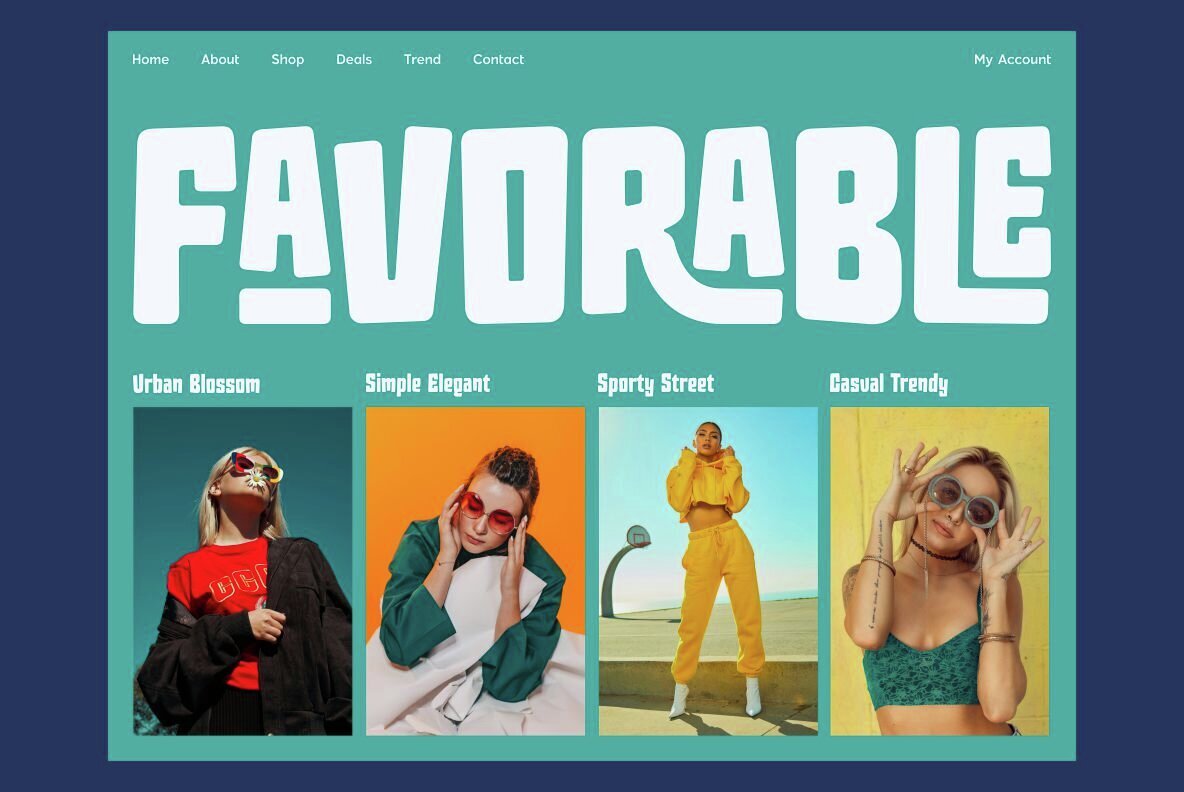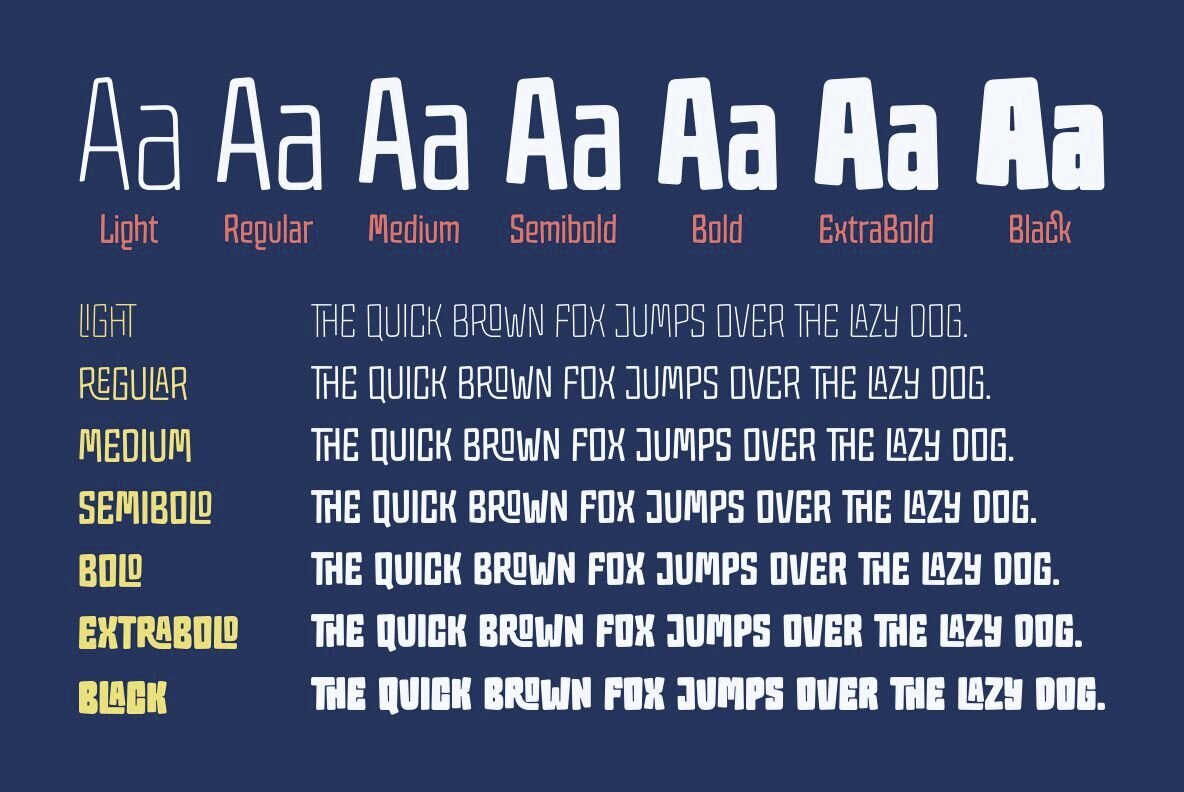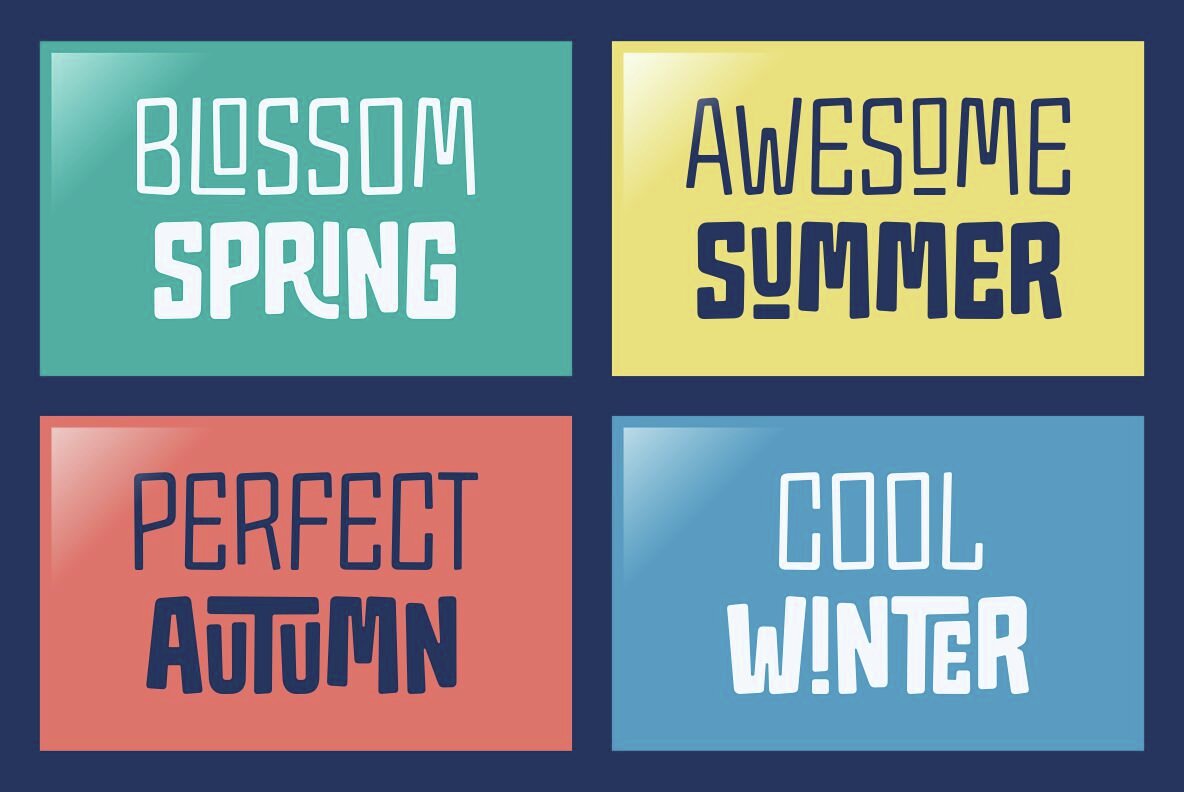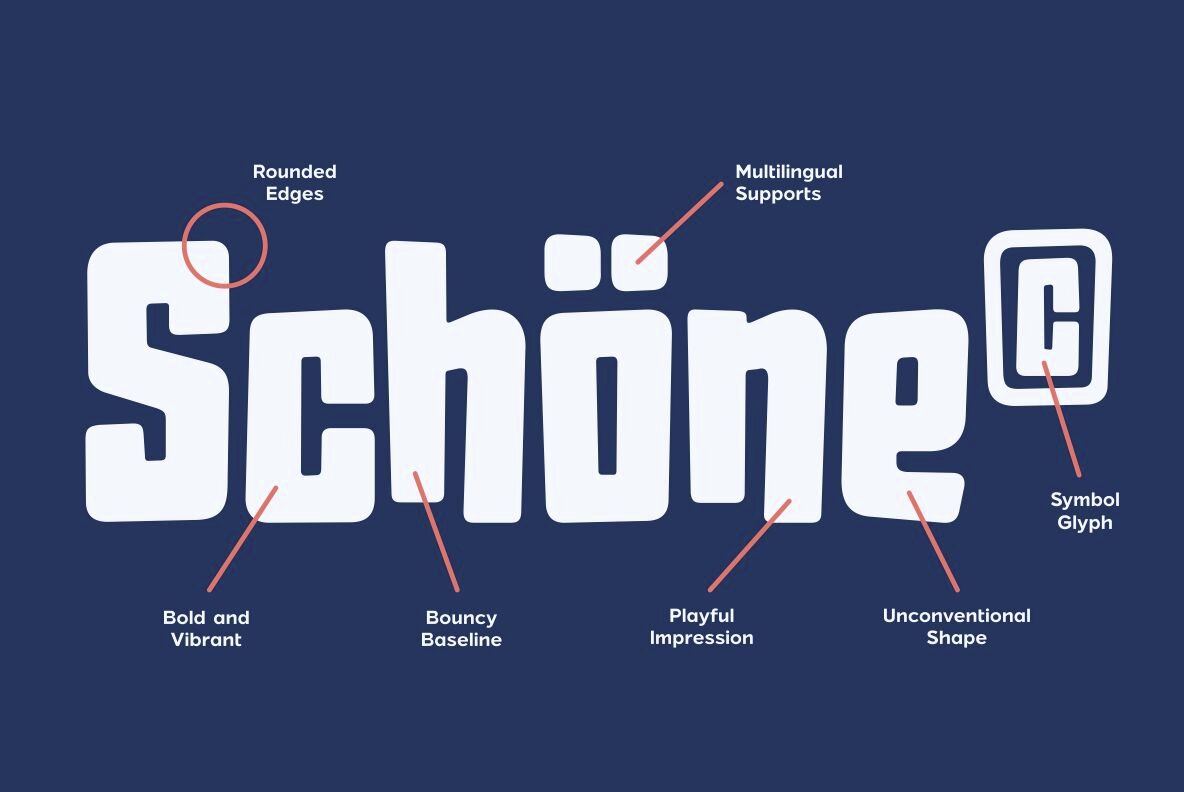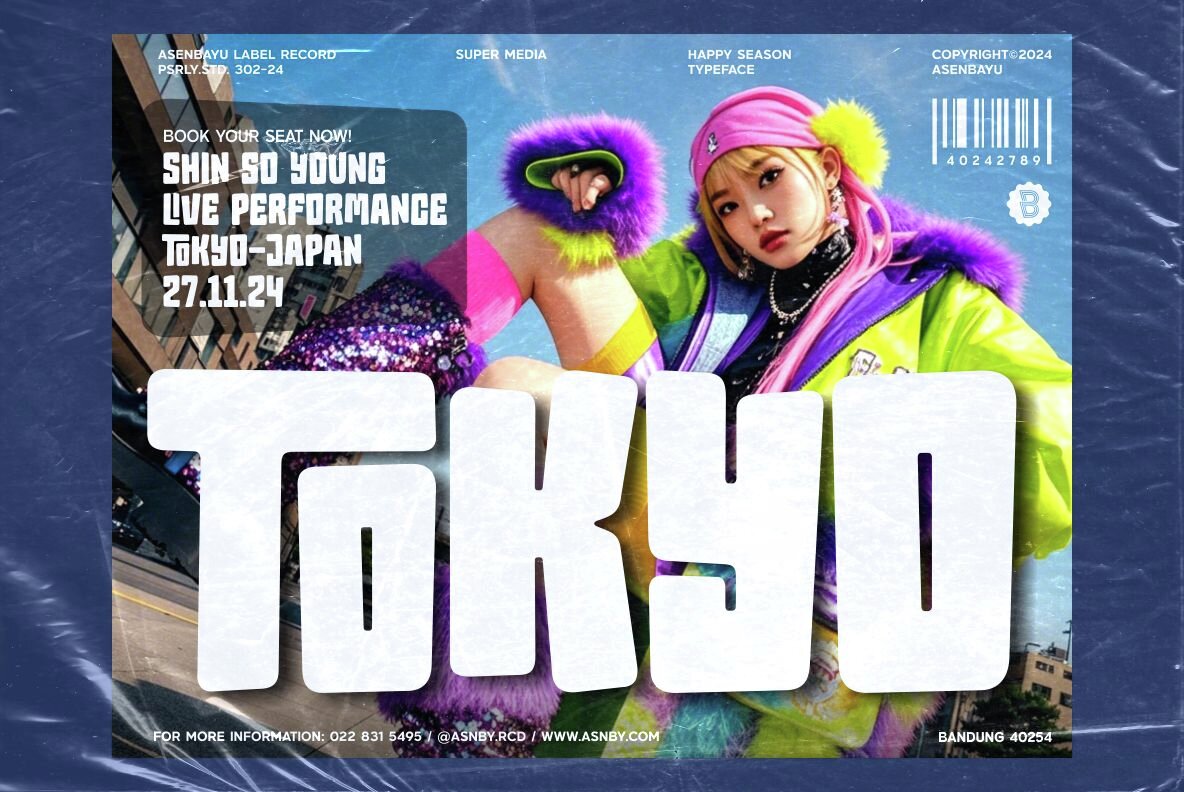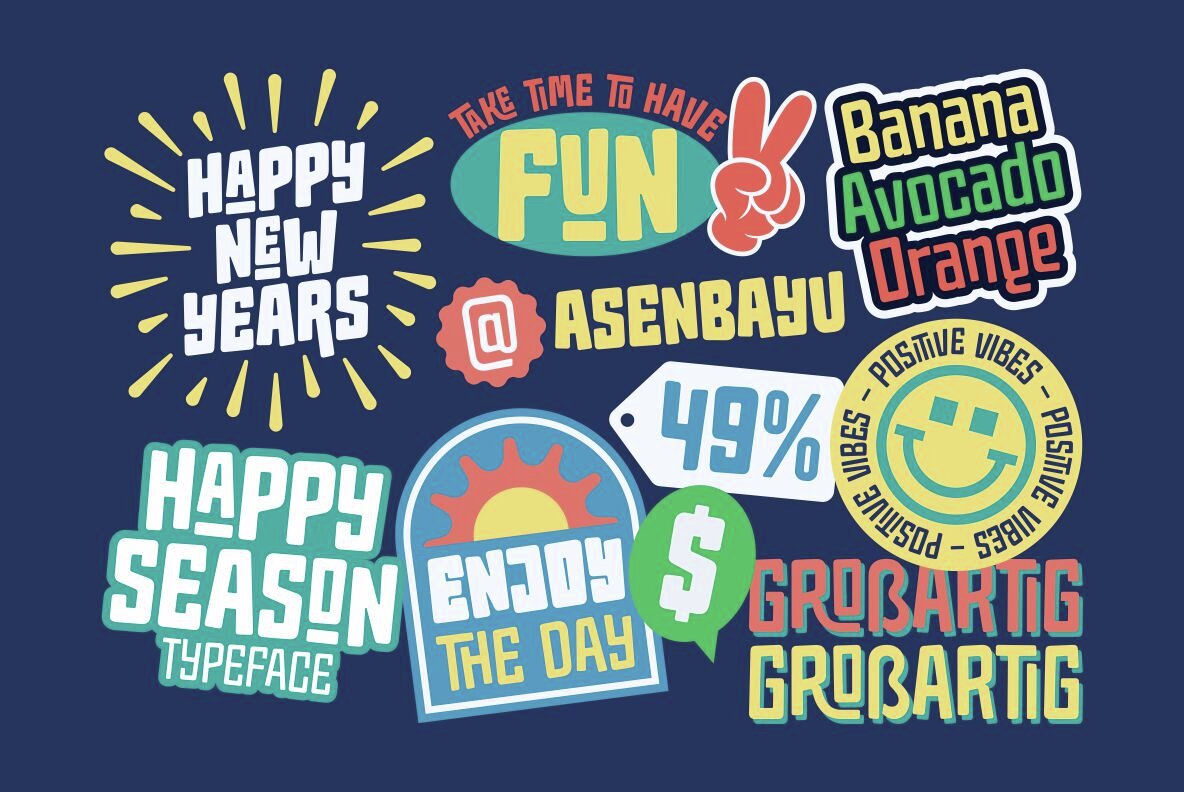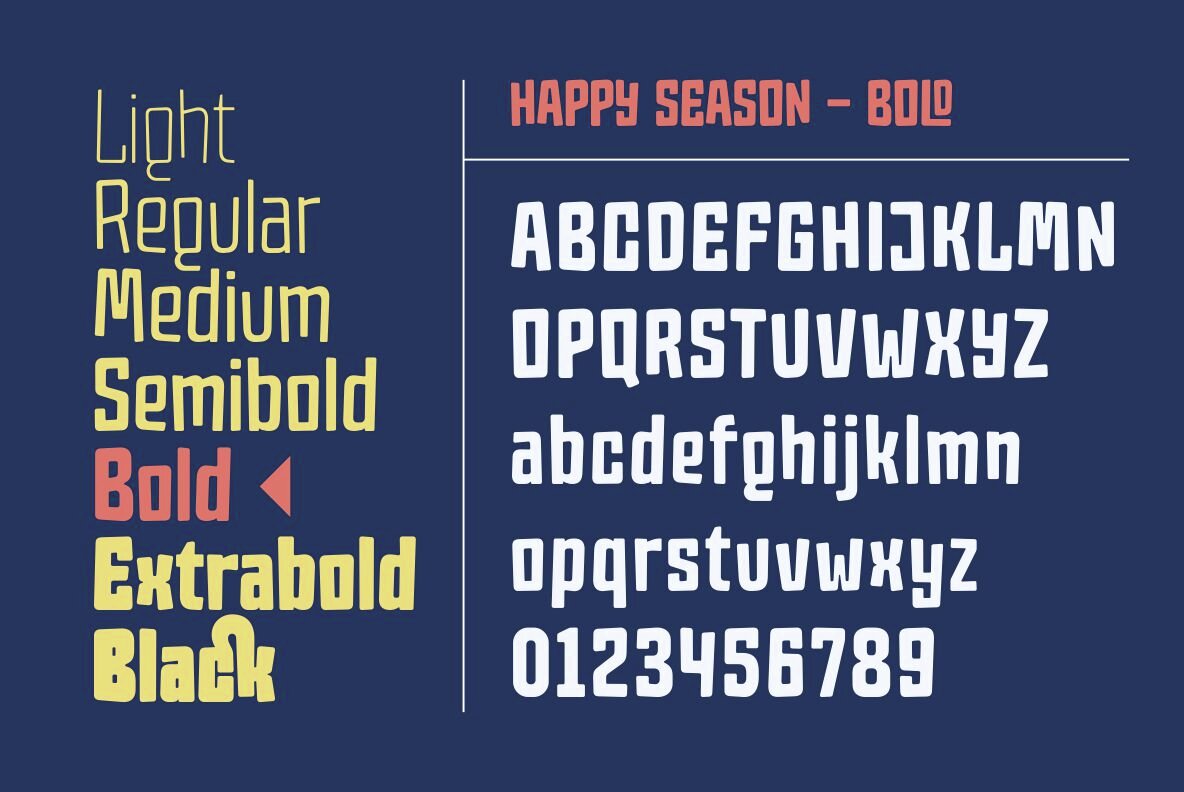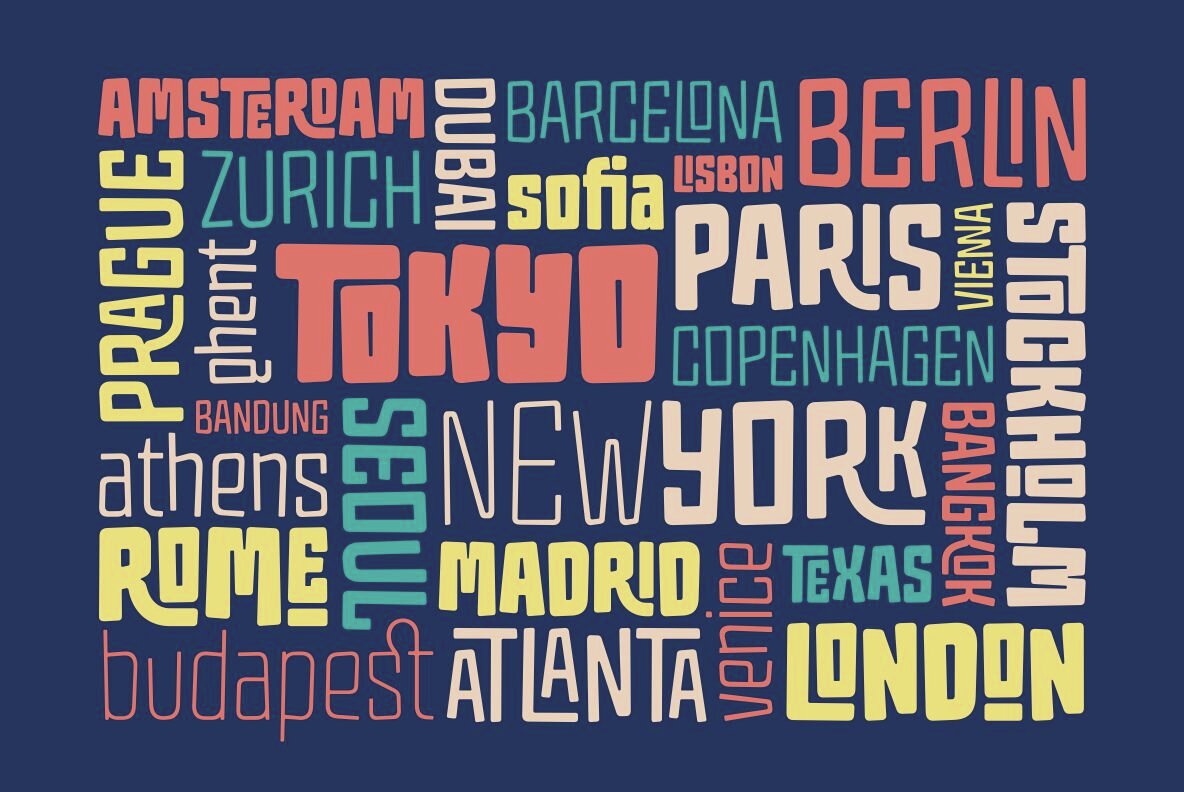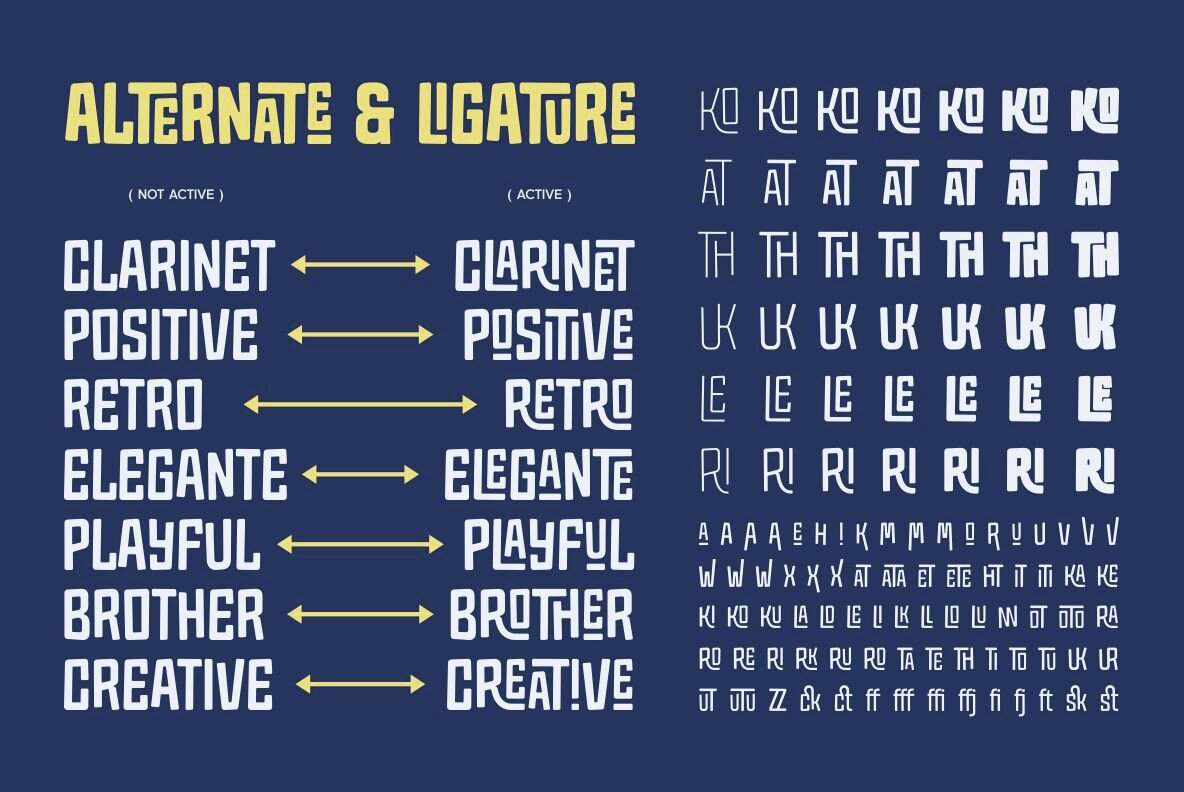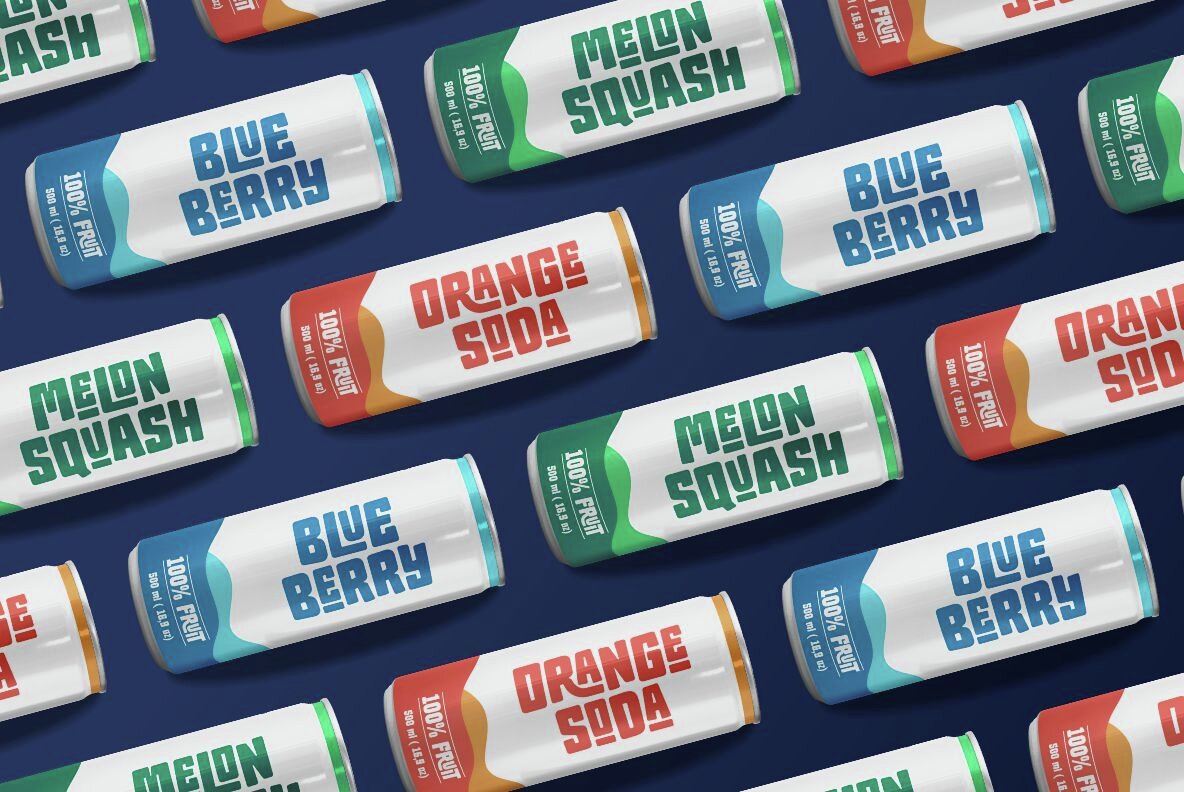
Happy Season Font
Happy Season is a modern, playful sans serif font family designed with an energetic and lively vibe. Consisting of seven styles ranging from Light to Black, this font has rounded edges that impart a friendly and approachable feel. Its design brings a casual and inviting look to any project.
Ideal for a variety of applications, Happy Season suits trendy packaging, unique logo designs, eye-catching headlines, and fashion-forward poster designs. This font family includes standard glyphs and offers stylistic alternates and ligatures, providing versatility for creative expression. It also supports numerals, punctuation, and multiple languages, allowing for wide-ranging use in diverse design environments.